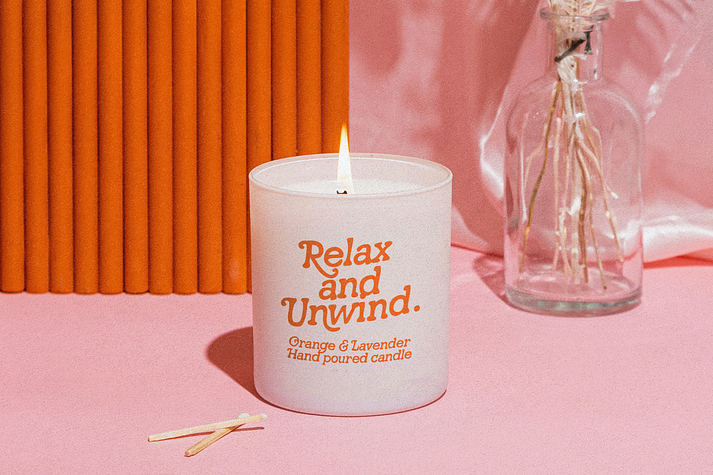
Black Magic
Black Magic is a font family published by Nicky Laatz.
Get transported back in time, with Black Magic - A casual 70’s style hand-drawn retro slab serif with some groovy Opentype stylistic alternates - see previews above for the alternates you get. Great for that laid back, retro-styled look :)
Foundry Nicky Laatz